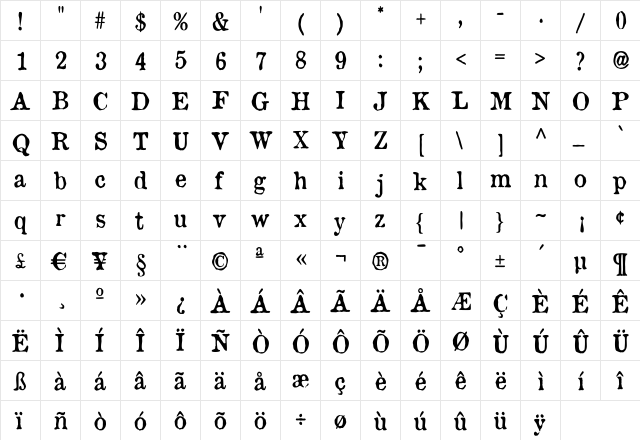
OldNewspaperTypes Regular
Design Context for OldNewspaperTypes Typeface
OldNewspaperTypes is a composed and adaptable typeface that performs quietly and consistently across a wide range of design contexts.